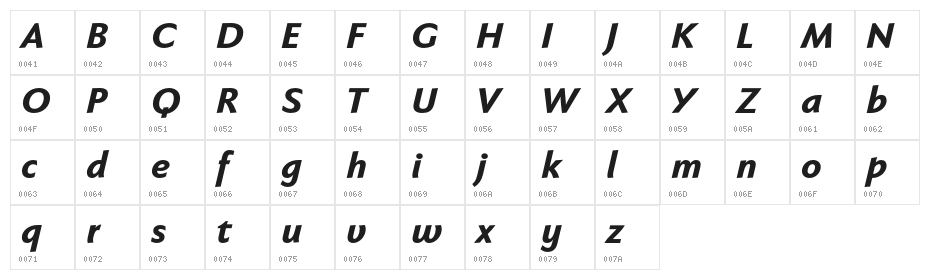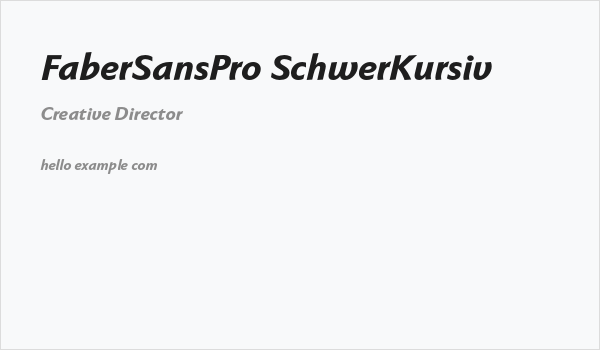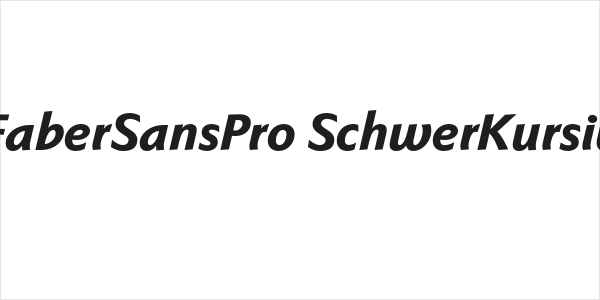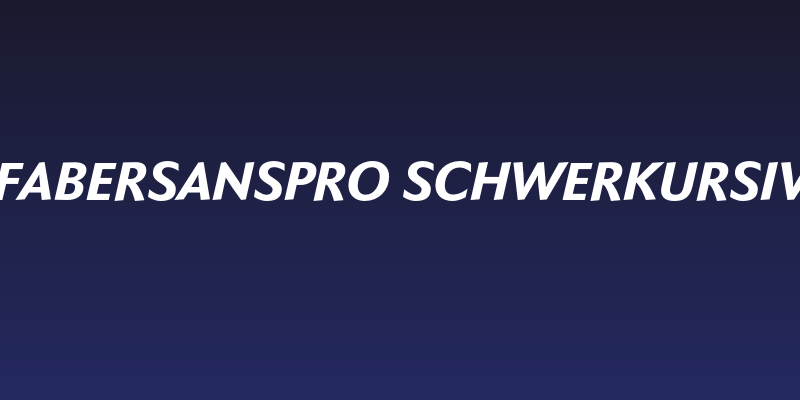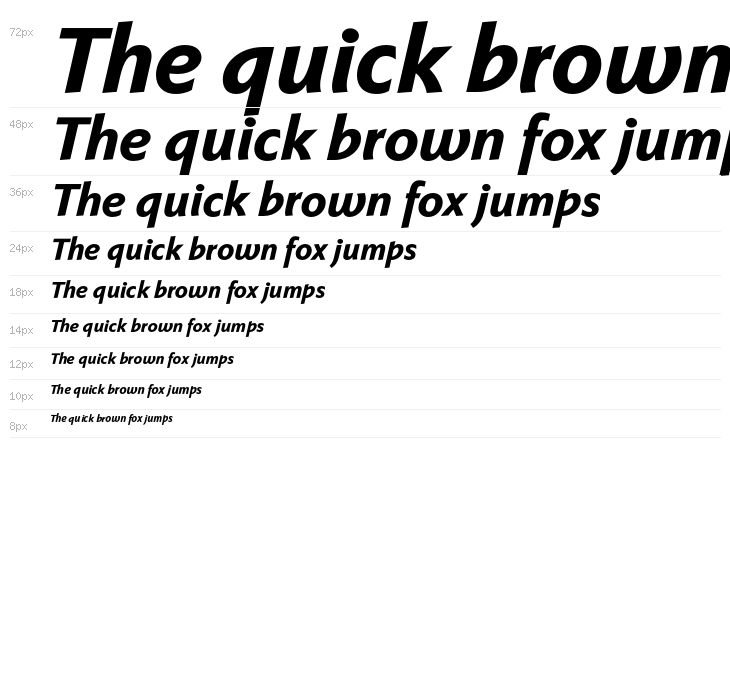
FaberSansPro-SchwerKursiv Font
FaberSansPro-SchwerKursiv Description
This font features a bold and dynamic sans-serif style with a distinct italic slant, giving it a sense of movement and modernity. The characters are well-proportioned, with a consistent stroke width that maintains readability while adding a touch of elegance. The uppercase letters are strong and commanding, while the lowercase letters offer a friendly and approachable feel. The numerals are clear and straightforward, making them suitable for various applications. The special characters are designed to complement the overall aesthetic, ensuring versatility in design projects.
| Use Case | Headlines, Logos, Advertising |
| Proposed Projects | Ideal for branding, advertising, headlines, and digital media where a modern and bold statement is needed. |